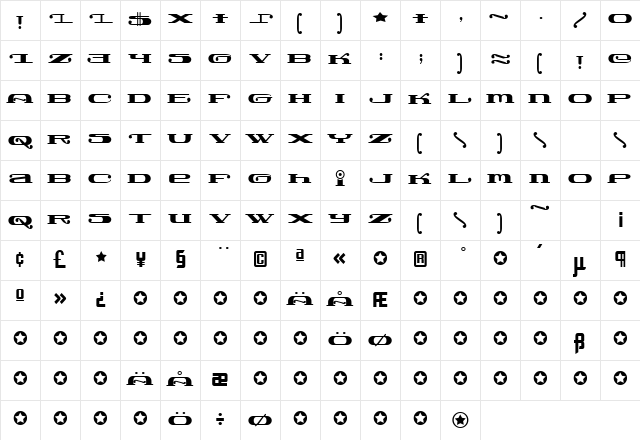
Lemonade Speedster Free Font
Lemonade Speedster
Style: Speedster
Design Context for Lemonade
Lemonade is a composed and adaptable typeface that performs quietly and consistently across a wide range of design contexts.